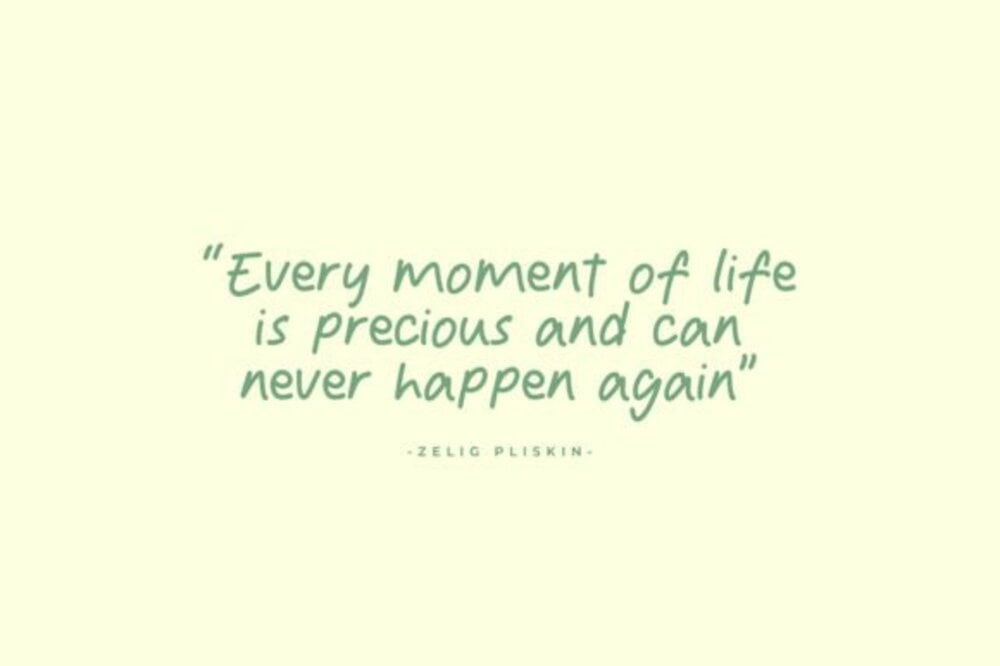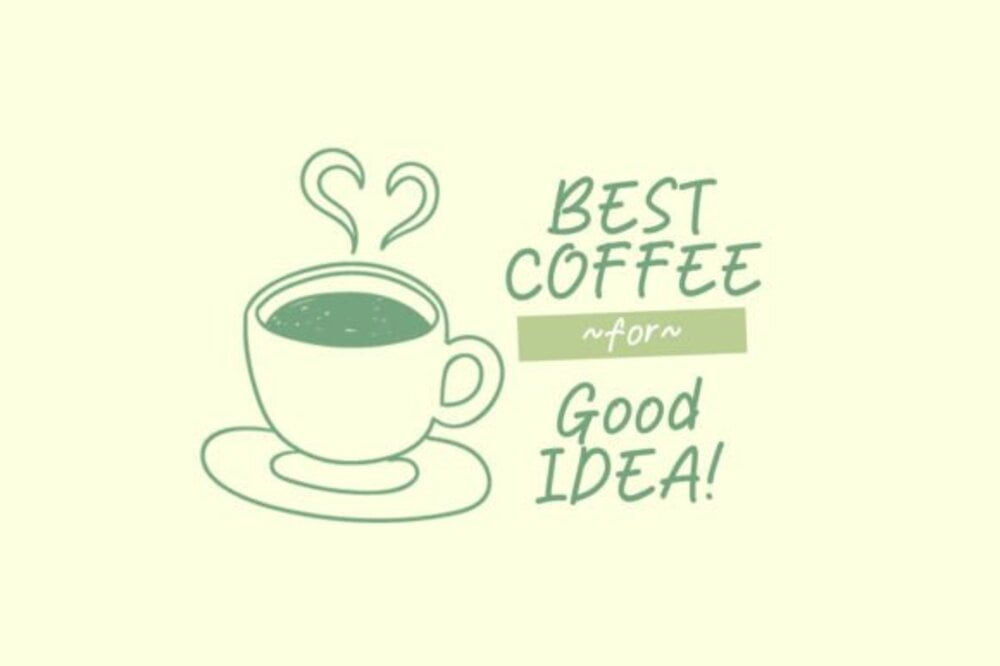
Welcome Drama Font
Welcome Drama Font is a bold and expressive typeface that exudes elegance and theatrical flair. With its dramatic contrasts, intricate details, and sweeping curves, it commands attention and adds a sense of sophistication to any project. Perfect for luxury branding, event invitations, or editorial headlines, it balances artistry with readability. Welcome Drama Font’s striking presence makes it ideal for designs that demand style and unforgettable impact.